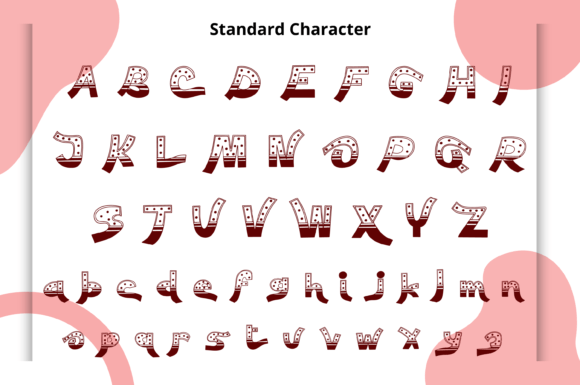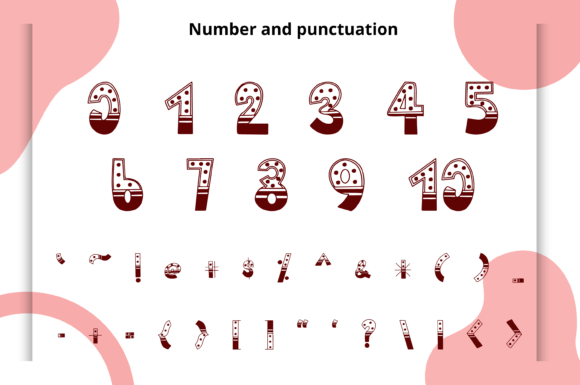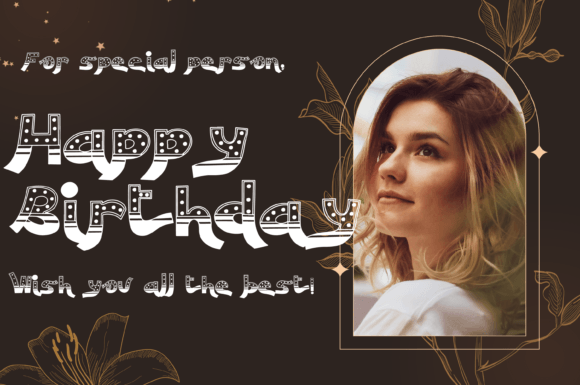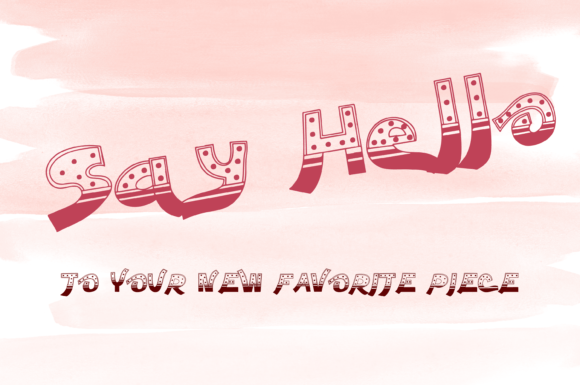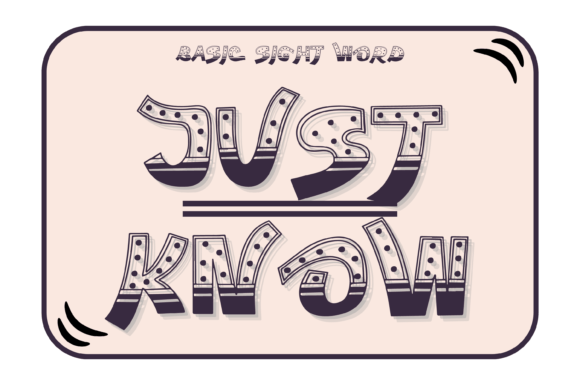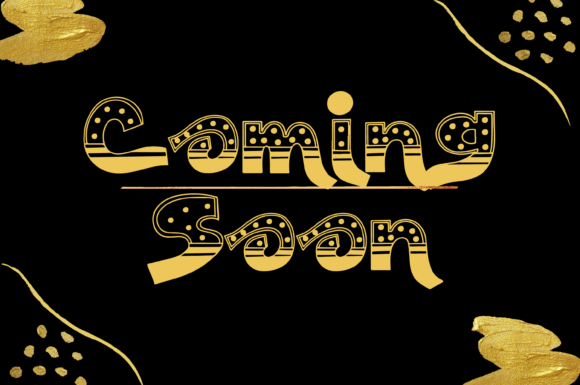
Unleash the Whimsy: Discover Bridge Alive Font
Have you ever been brainstorming ideas for a new project, and suddenly, a spark of creativity hits you? The words flow effortlessly, and your vision starts to take shape. That’s exactly what happened to us when we stumbled upon the enchanting Bridge Alive Font. This charming handwritten font has a way of bringing your ideas to life, infusing them with a touch of magic and whimsy.
As a designer, you know how essential it is to have the right tools at your disposal. The Bridge Alive Font is a valuable addition to any creative arsenal, offering a clean and elegant aesthetic that can elevate even the most mundane projects. Whether you’re working on a branding campaign, a wedding invitation, or a children’s book, this font is sure to make your designs stand out.
- Unique Characteristics: The Bridge Alive Font features a unique, hand-drawn aesthetic with a blend of modern and vintage elements, making it ideal for designers looking to add a touch of personality to their work.
Bridge Alive Font Review
Overall, I’d say the Bridge Alive Font is a unique and captivating font that’s sure to grab attention. Here are some aspects where it truly shines:
- ✨ Expressive Gestures – The font’s fluid, dynamic strokes give it a very organic feel that makes it perfect for creating emotional connections with your audience.
- ✨ Wide Character Set – Bridge Alive Font has a vast range of characters, including punctuation, numbers, and even some special characters, making it suitable for a wide range of applications.
- ✨ Easy to Read – Despite its expressive nature, the font is surprisingly easy to read, even at smaller font sizes.
- ⚠️ Limited Legibility in Small Sizes – While the font is generally easy to read, it can become a bit difficult to decipher at very small font sizes.
- ⚠️ Not Suitable for Highly Technical Text – The font’s expressive nature can sometimes make it hard to read technical or highly formal text.
Overall, I’d say the Bridge Alive Font is a great choice for designers who want to add a touch of personality and emotion to their work. It’s perfect for creative projects, such as branding, advertising, or social media graphics. Just be mindful of its limitations, and you’ll be good to go.
Use Bridge Alive Font for creative and modern designs. This font is ideal for branding, advertising, and editorial content. To get the most out of it, experiment with different font sizes and colors to create visually appealing combinations.
Bridge Alive Font is commonly used for:
- Editorial content and publications
Alternatives to Bridge Alive Font
Great Vibes is a beautiful, handwritten font perfect for creative and artistic projects. It’s ideal for use in headings, titles, and quotes, where you want to add a touch of elegance and sophistication. Compared to Bridge Alive Font, Great Vibes has a more refined and polished feel, making it suitable for high-end designs.
Pacifico is a modern, elegant font with a beautiful calligraphic feel. It’s perfect for use in titles, headings, and body text where you want to convey a sense of sophistication and refinement. Compared to Bridge Alive Font, Pacifico has a more relaxed and casual feel, making it suitable for use in a variety of projects, from fashion to food.